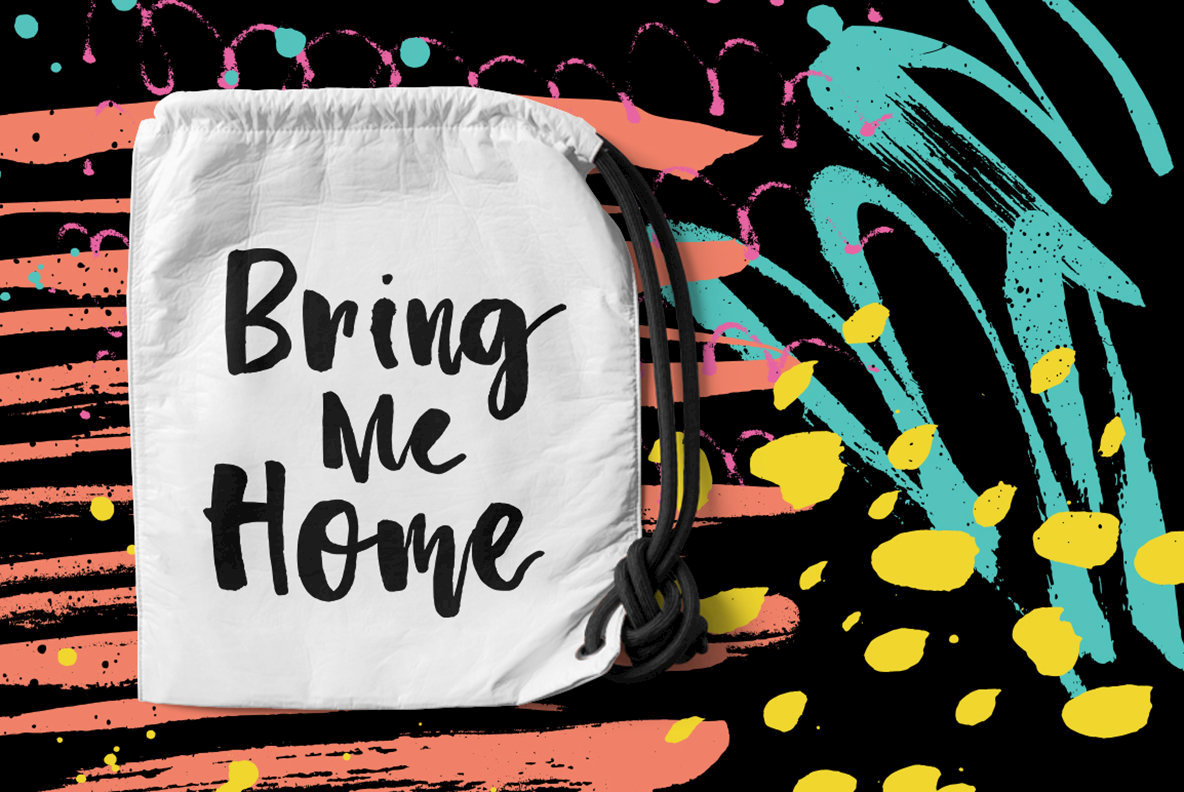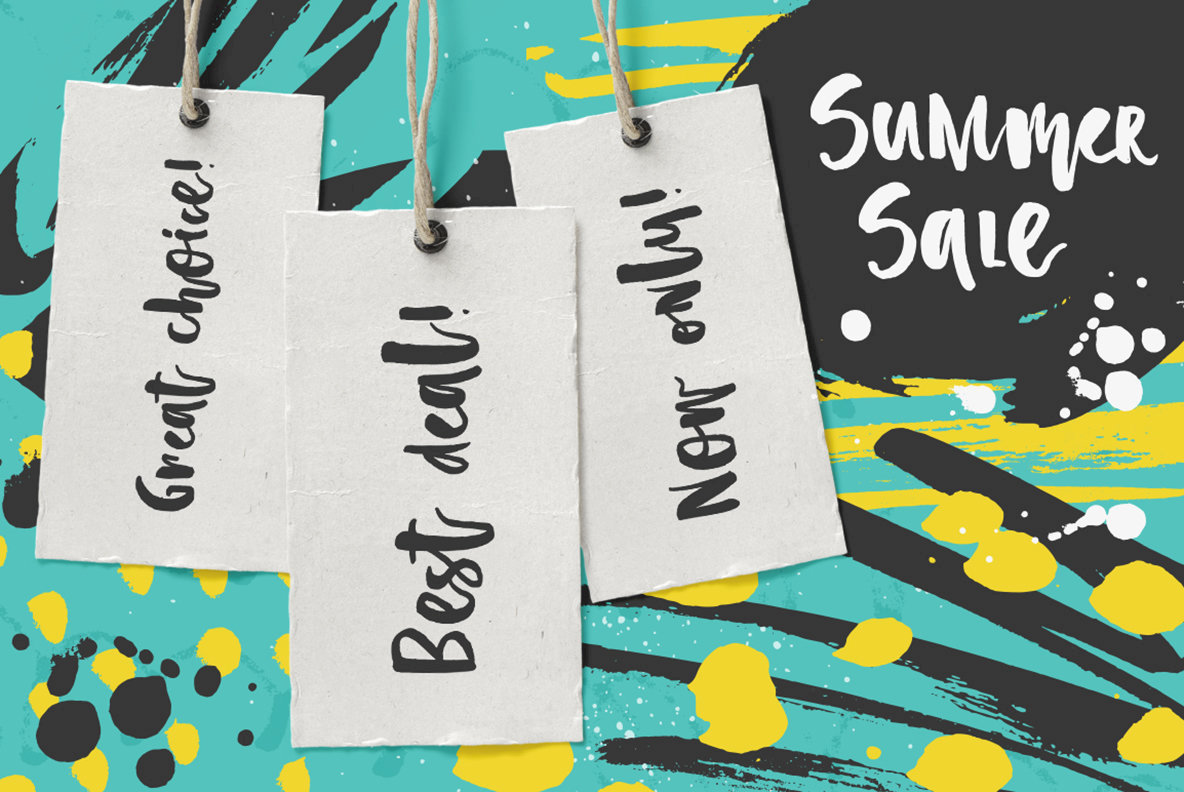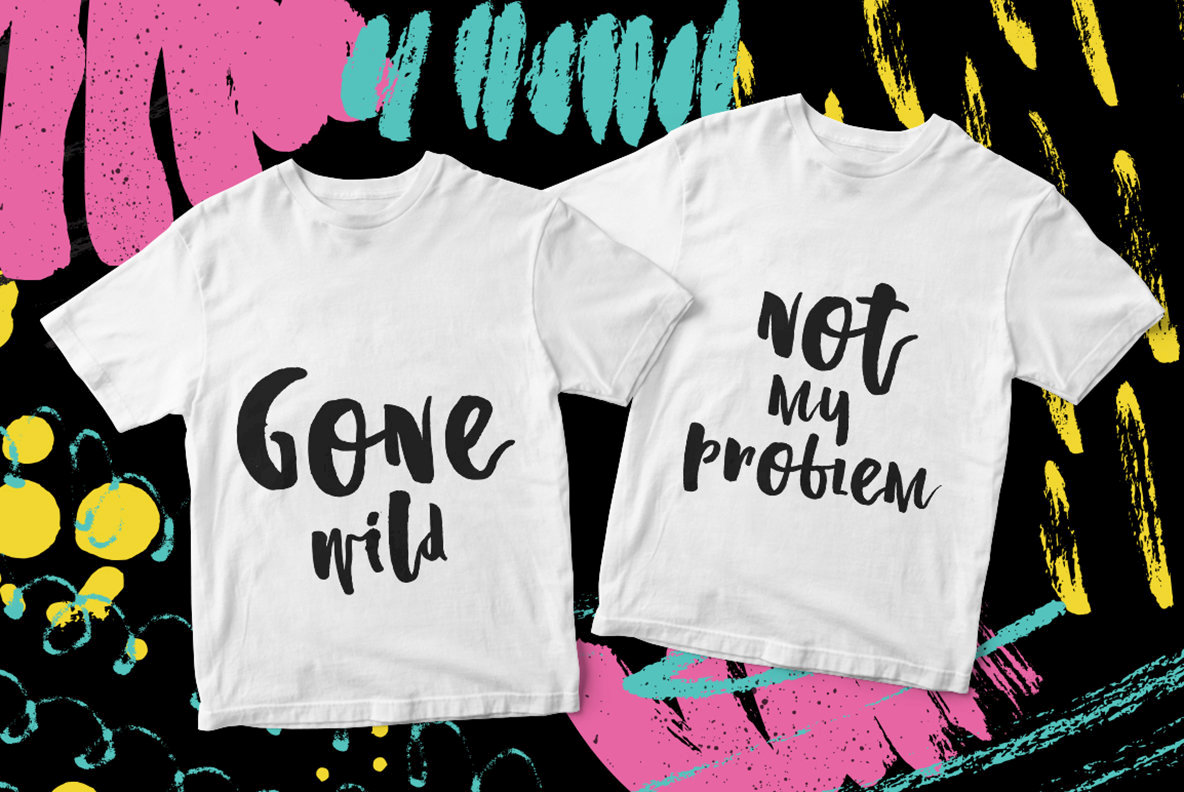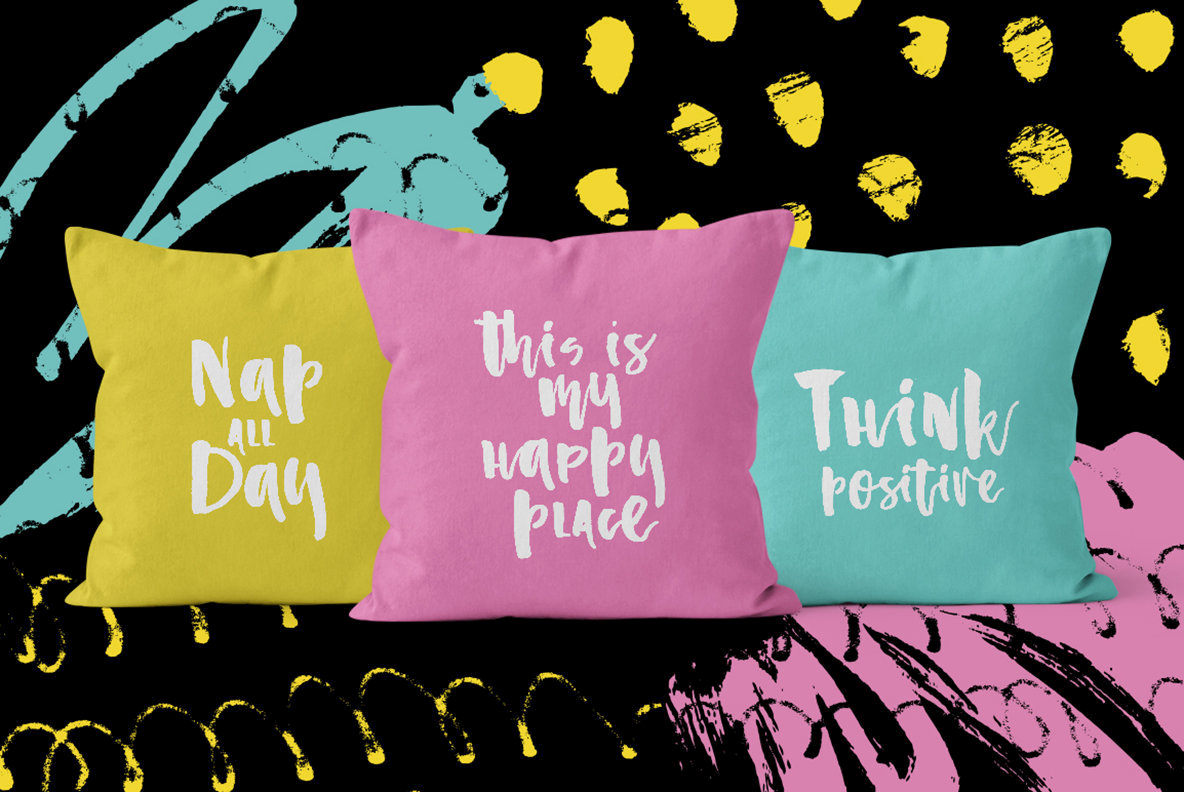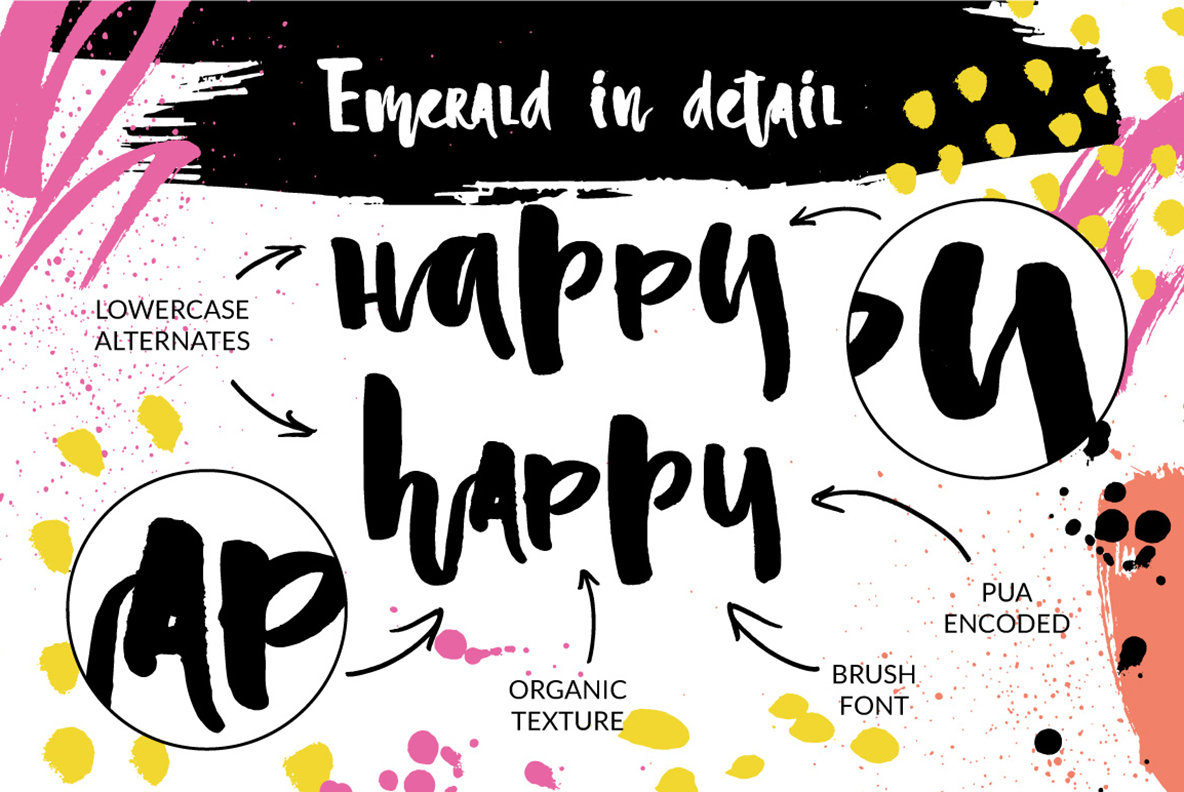
Emerald
Emerald is one of a kind playful brush font. It has dancing baseline, organic texture and some interesting variations of lowercase letters.
Main Emerald Features:
- Handdrawn with brush & ink
- Standart lowercase and uppercase characters
- Some lowercase alternates
- PUA coded
- Language support for most of european languages